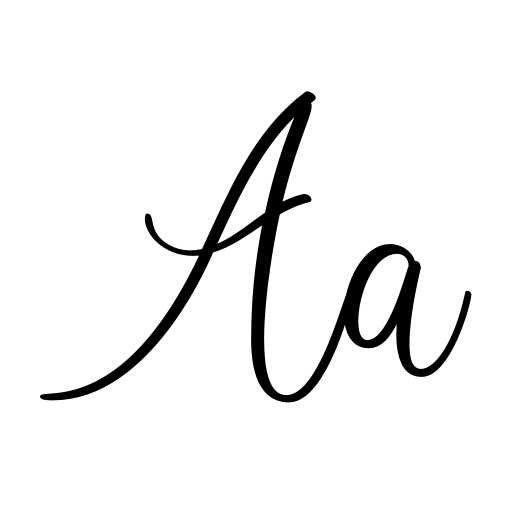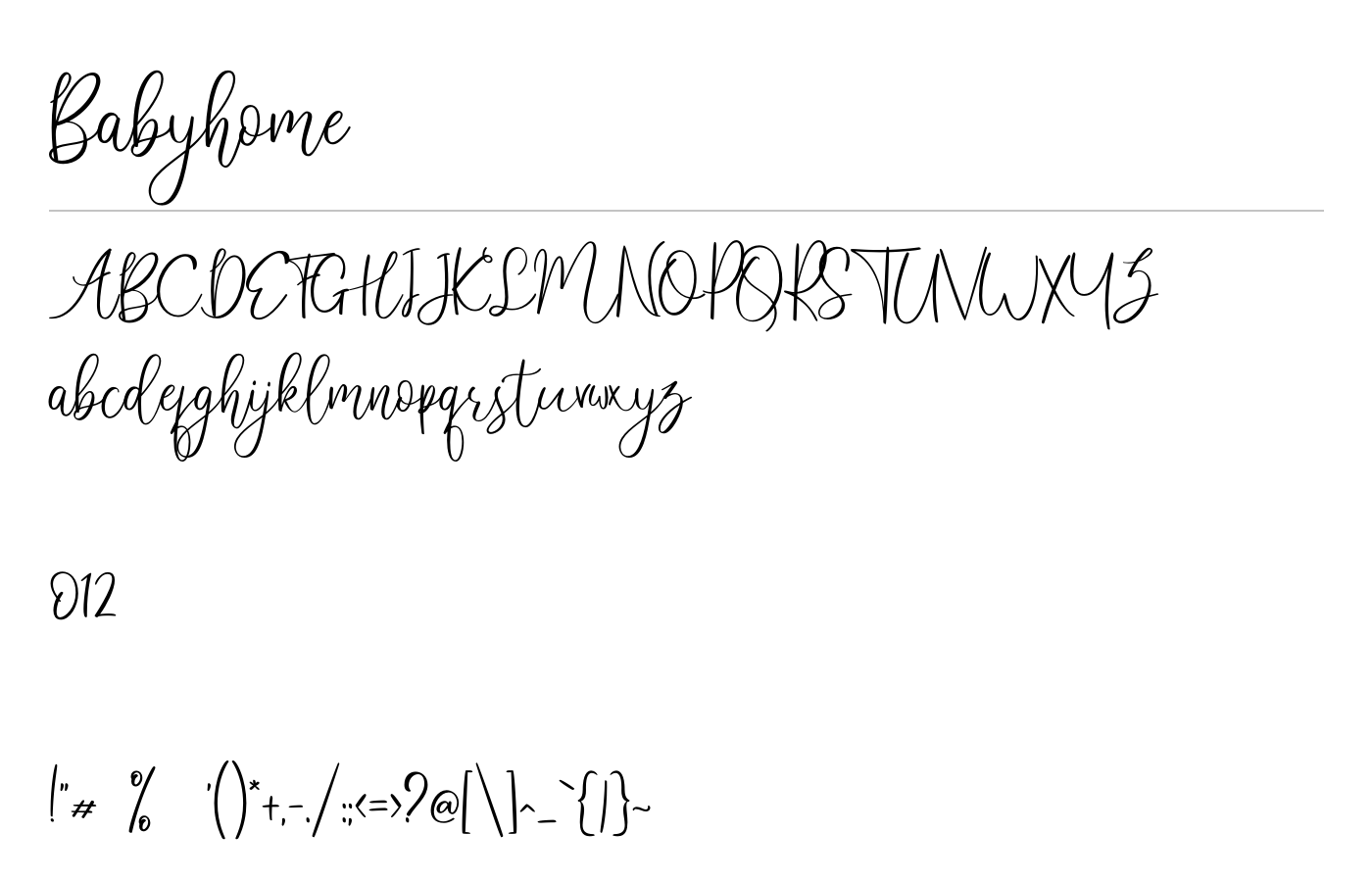
Babyhome is a delicate, handwritten script font with a light and playful feel, featuring elegant, flowing letterforms and tall, narrow proportions that add charm and personality. Its thin, smooth strokes and whimsical loops make it ideal for creative projects like invitations, branding for children’s products, or any design seeking a friendly, approachable touch. This font works best in display settings where its intricate details can shine and create a warm, personal impression.
Babyhome Font
About Babyhome Font
| Font family | Babyhome Font |
| Designer | Sarwo Edhi Prayitno |
| Trademark | Haksen Studio |